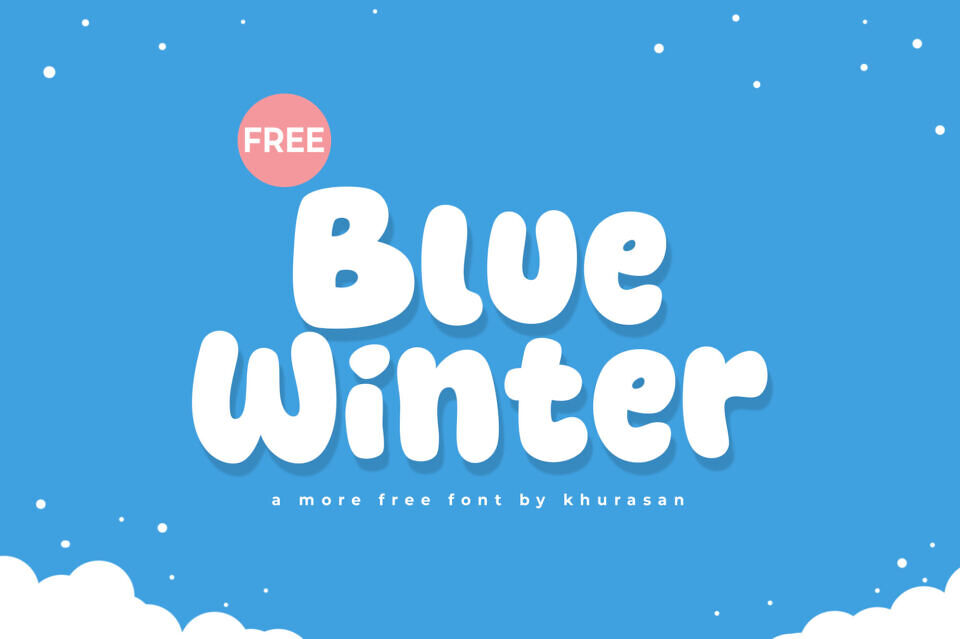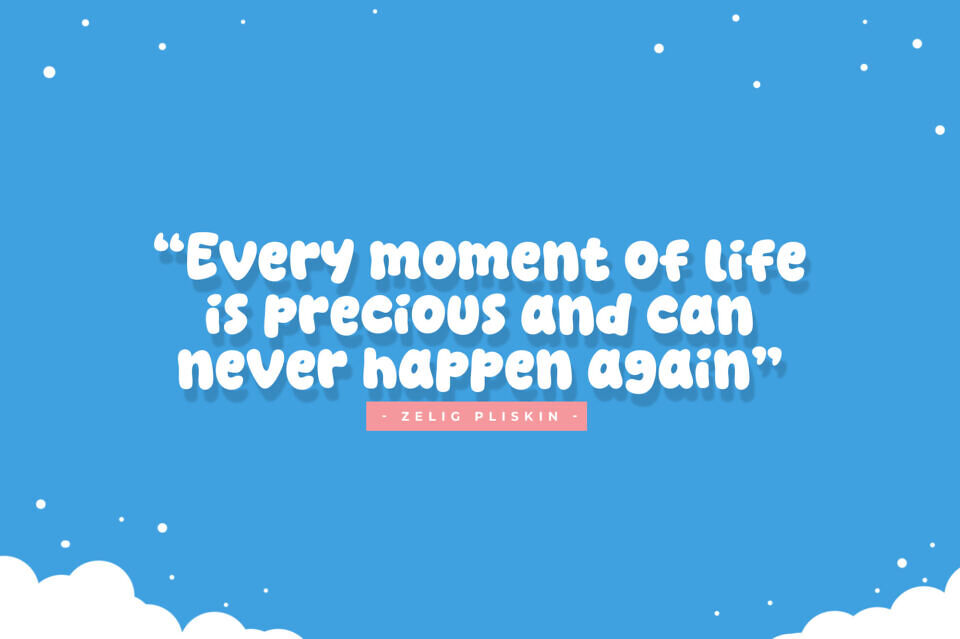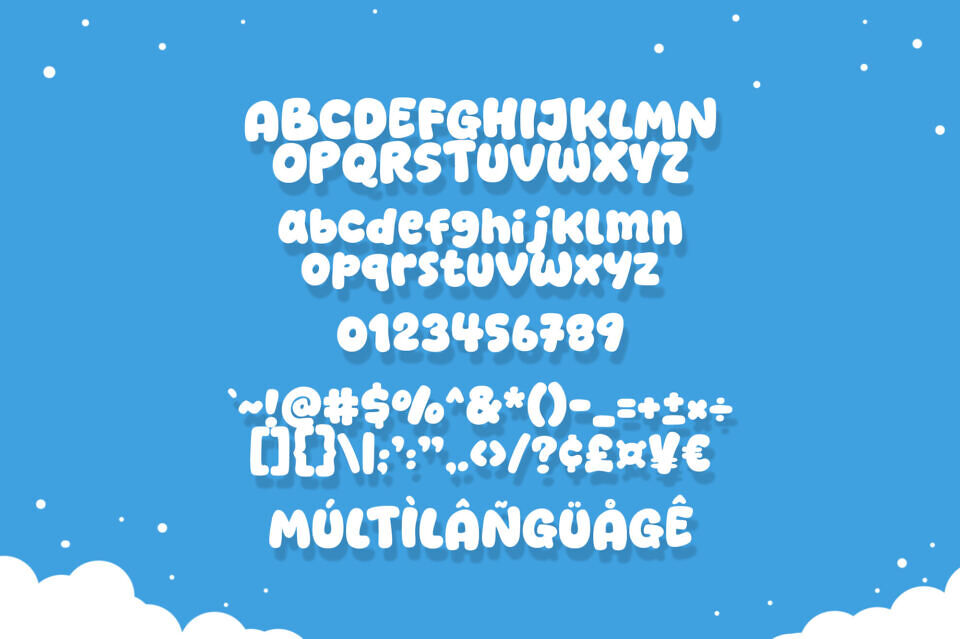
Bring a playful frostiness to your designs with the Blue Winter font, a thick, bubbly display typeface that is as bold as a fresh snowfall.
This ultra-rounded Blue Winter typeface is designed for high visibility and immediate impact, making it the perfect candidate for children’s winter apparel, toy packaging, and festive posters.
The Blue Winter font features soft, pillowy letterforms that evoke a sense of joy and comfort, ideal for hot cocoa branding or winter festival signage.